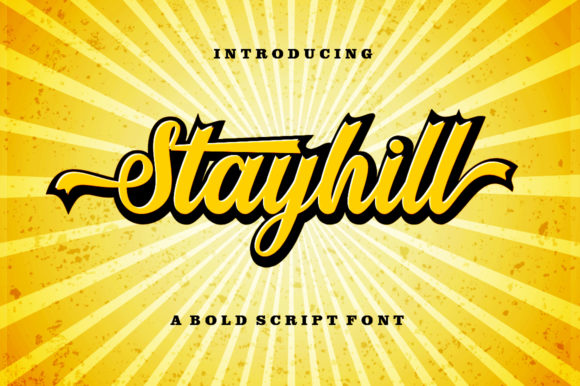
Unleash the elegance of Stayhill Font, a captivating monoline script font that dances across your designs with a bold flavor. Crafted by the talented hands at LetterFreshStudio, Stayhill is not just a font; it's an expression of artistry, a symphony of strokes that will elevate your designs to new heights.
Step into a world of sophistication and charm, where Stayhill's bold lines and rhythmic flow create a striking visual impact. Whether you're designing wedding invitations, branding materials, or social media posts, Stayhill adds a touch of effortless grace that captivates the eye.
With its meticulously crafted curves and flourishes, Stayhill embodies a sense of timeless elegance. Say goodbye to ordinary fonts and embrace the beauty of Stayhill, a font that embodies creativity, passion, and a touch of magic. It's the perfect choice for those who seek to make a statement, to leave a lasting impression, and to create designs that resonate with audiences.
Let Stayhill ignite your imagination and take your designs to new heights. Its bold presence and undeniable charm will transform your words into works of art, captivating your audience and leaving them in awe. With Stayhill, you hold the power to create designs that transcend the ordinary and enter the realm of the extraordinary.
Discover the boundless possibilities of Stayhill Font today. Let its bold lines and graceful curves dance across your designs, creating an unforgettable visual experience that sets you apart from the crowd. Embrace the beauty of Stayhill, and elevate your designs to new heights of sophistication and allure.